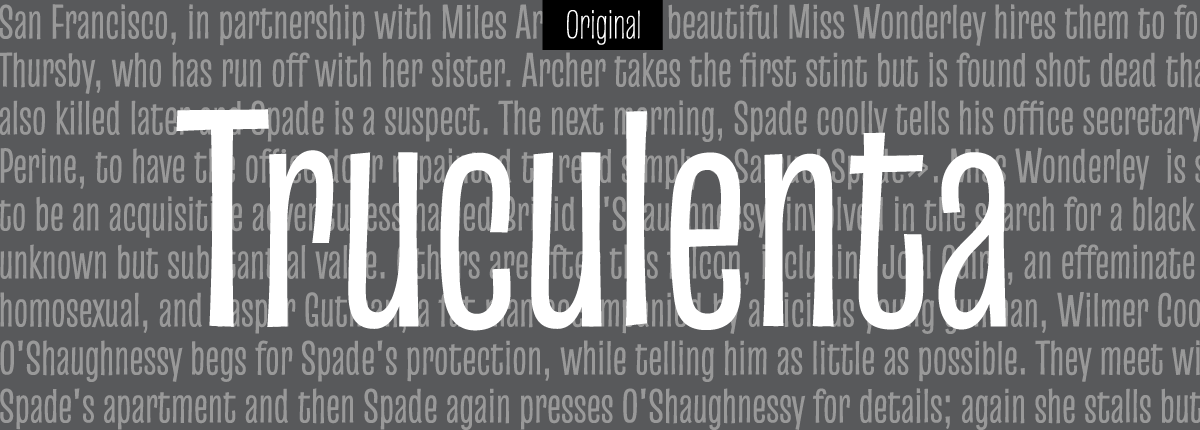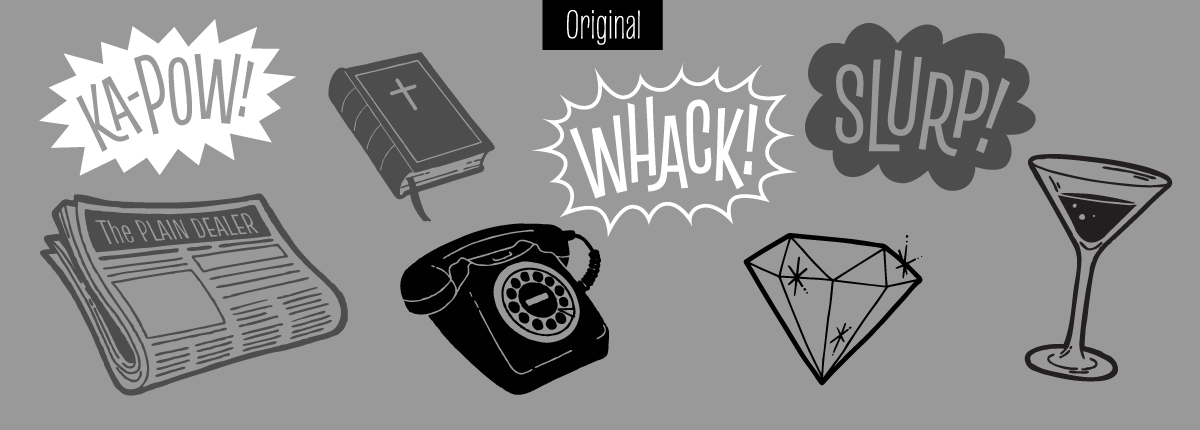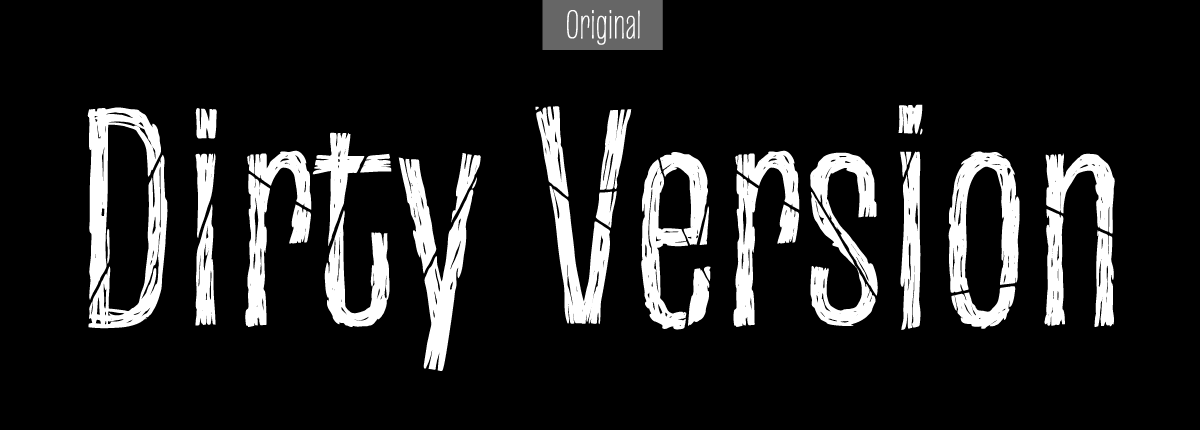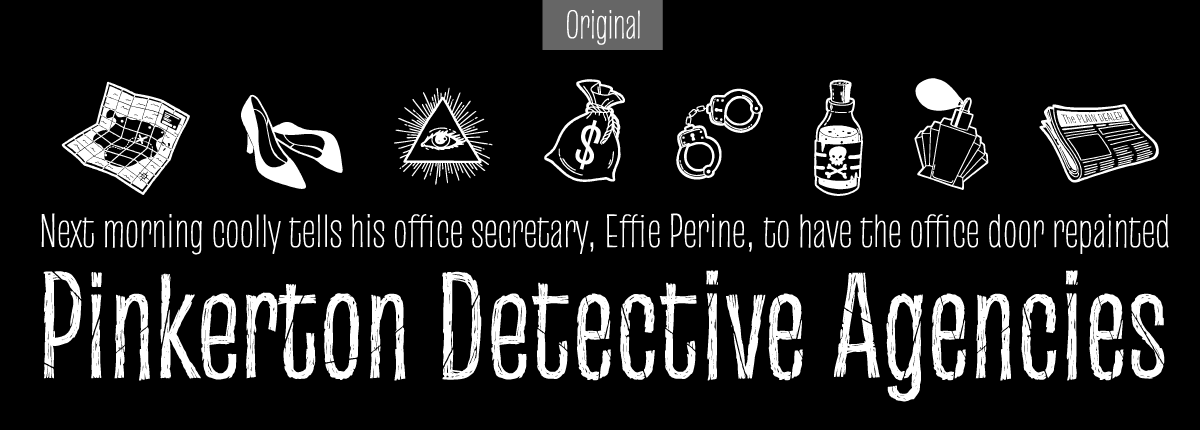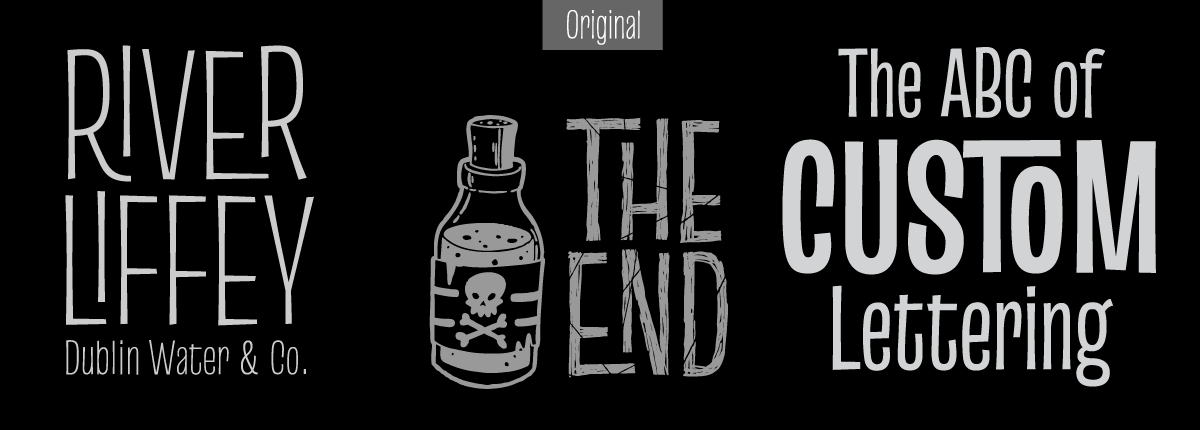
Truculenta Original is an irregular sans serif typeface based on mid-century lettering works, yet with a little twist. This quirky grotesque has 3 weight variants (Thin, Regular, Bold) plus a Dirty version, a kind of ragged regular. Each variant has 2 sets of tabular figures (lining and old-style), a set of 135 ligatures, and 40 onomatopoeias. Truculenta Original Dirty comes with 40 original pictograms drawn by Eva Sanz. This typeface is highly suitable for packaging, branding, book covers, illustrated editions, and film titles, since its personality may be more vibrant than the usual cold neo-grotesque. It was designed by Iván Castro, along with the Omnibus-Type Team.